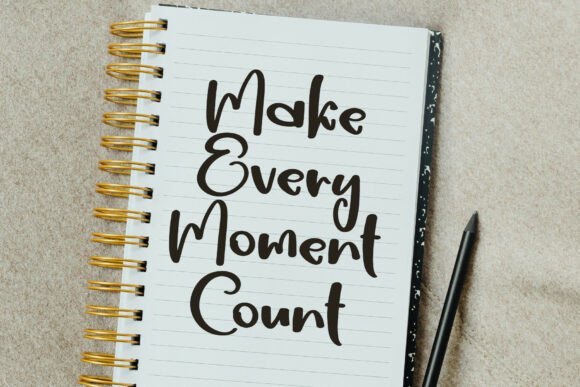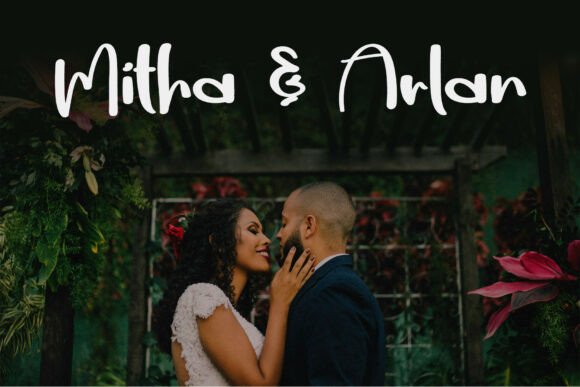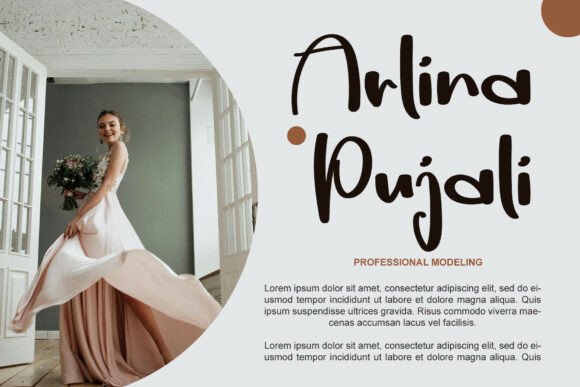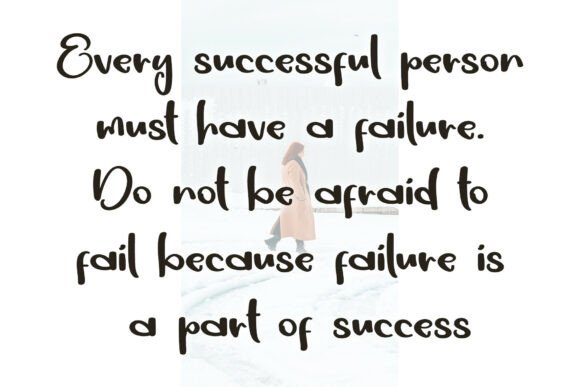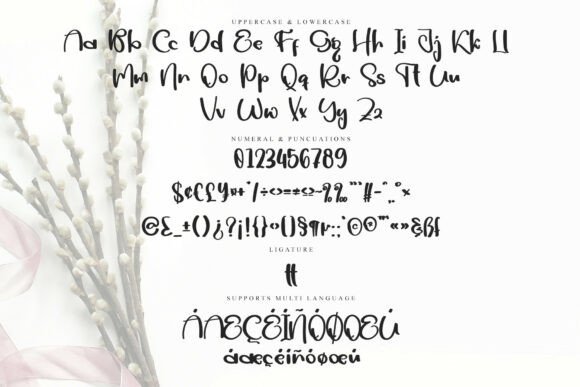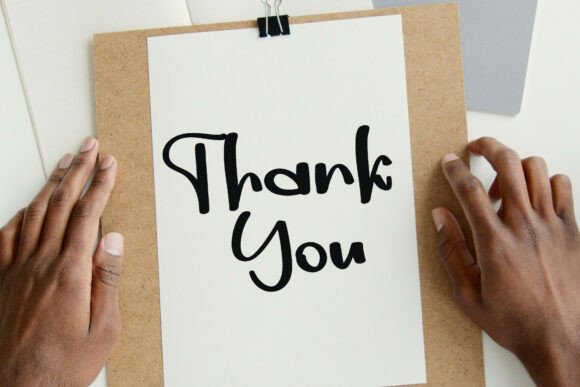
Unlock the Magic of the Season with Careful Holiday Font
As the holiday season approaches, we’re all searching for that perfect spark to make our designs shine. And what better way to add some magic to your projects than with a captivating display font that exudes strength and elegance? For designers, the quest for the perfect font is an ongoing one, and we’re excited to introduce you to the enchanting Careful Holiday Font.
This charming font is more than just a pretty face – it’s a tool that adds a sense of wonder and sophistication to any project. With its unique letterforms and a touch of mystery, it’s the perfect addition to any design that aims to leave a lasting impression. Whether you’re working on a mystical, modern, or elegant project, the Careful Holiday Font is sure to inspire and delight.
Careful Holiday Font Key Features
- Font Family: Careful Holiday Font is a unique, handwritten font designed specifically for the holiday season.
- Unique Characteristics: Careful Holiday Font features intricate, hand-drawn designs, swashes, and flourishes, adding a touch of elegance and sophistication to any design.
Careful Holiday Font Review
- The font has a unique and festive feel to it, making it perfect for holiday-themed projects.
- The bold and playful style is sure to grab attention and add a touch of whimsy to any design.
- The font is highly customizable, allowing for easy adjustments to color, size, and spacing.
- The font may be a bit too bold and overwhelming for some projects, so use it sparingly.
- The lack of a regular weight version can make it difficult to create balanced compositions.
- The font may not be suitable for professional or corporate designs, as it has a more casual and playful feel.
Overall, I think the “Careful Holiday Font” is a great addition to any designer’s toolkit, but it’s essential to use it judiciously and consider the project’s tone and audience. With its unique style and high customizability, it’s perfect for holiday-themed projects, social media graphics, or other fun and playful designs.
The Careful Holiday Font is perfect for creating a festive and elegant design. Use it for:
- Christmas and holiday-themed designs.
- Special occasion cards and gifts.
Remember to pair the font with a complementary color scheme and design elements to create a cohesive look.